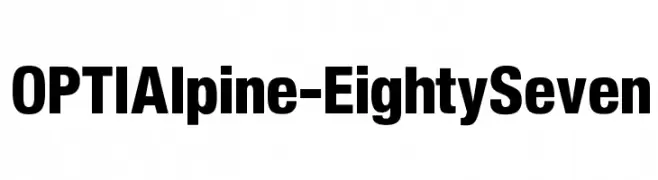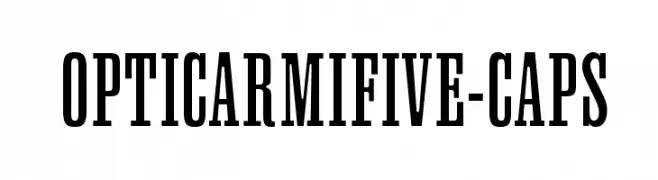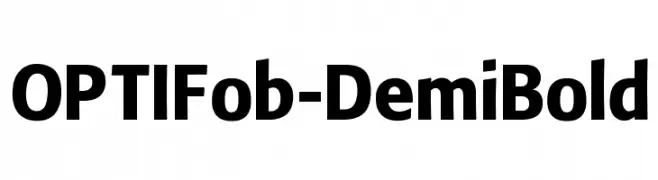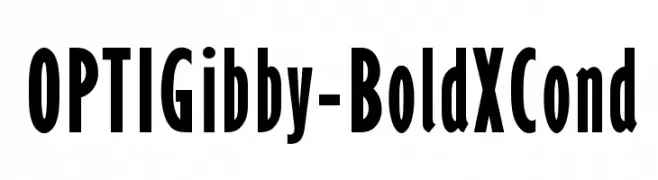
A bold, geometric typeface with strong, uniform strokes and a modern aesthetic.
A bold, classic serif font with elegant proportions and strong strokes.
An elegant serif font with a medieval flair and sharp, pointed serifs.
A classic serif font with elegant curves and a timeless appearance.
A bold, high-contrast serif font with elongated characters and a modern yet classic style.
A bold, modern font with strong lines and tight spacing, perfect for impactful designs.
A bold, condensed font with tall, narrow letterforms and a modern, impactful style.
A bold, clean font with strong lines and excellent legibility.
A bold, impactful font with thick, uniform strokes and a strong visual presence.
A bold, modern font with thick, uniform strokes for strong visual impact.